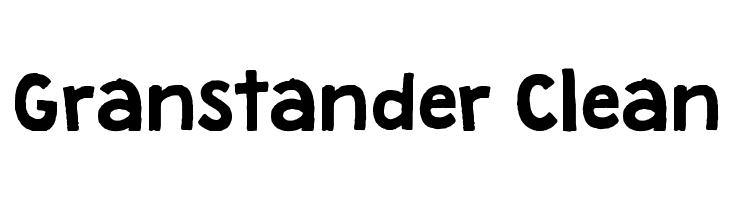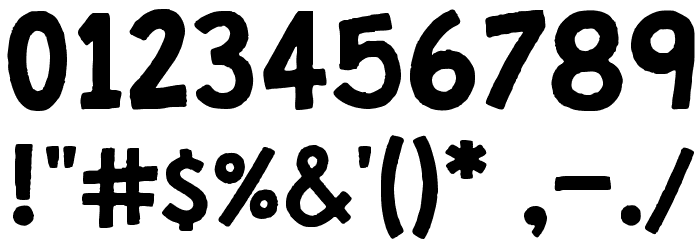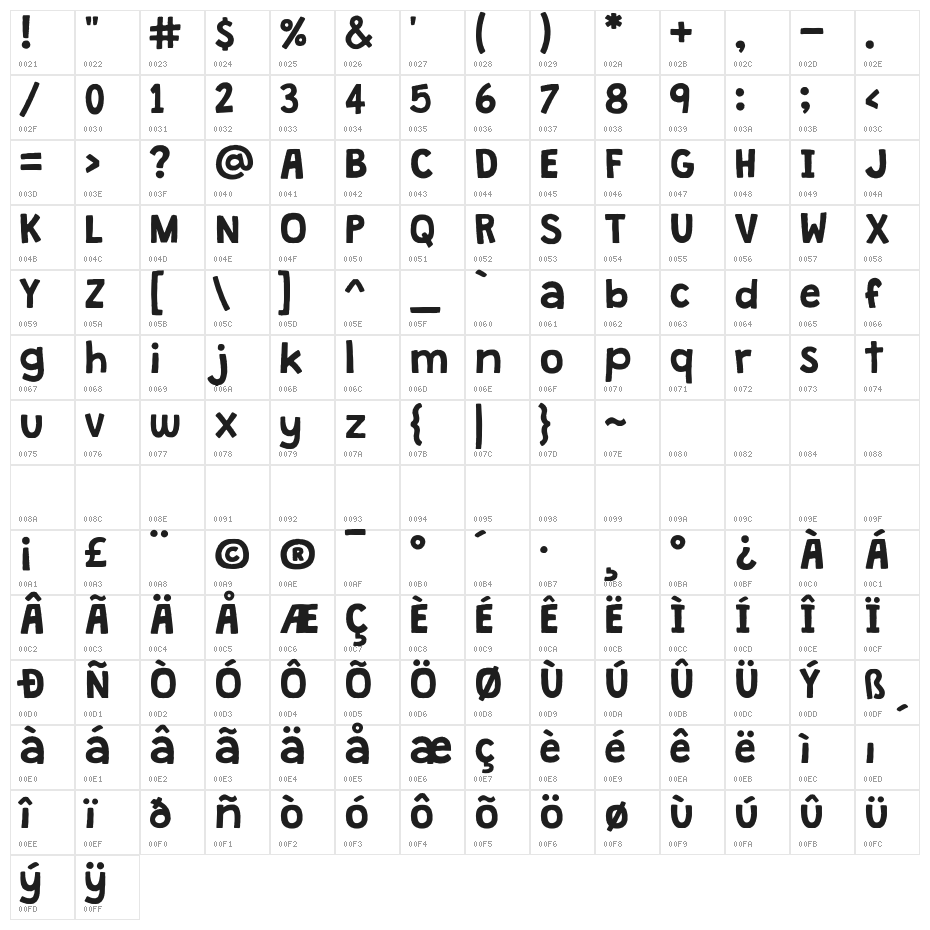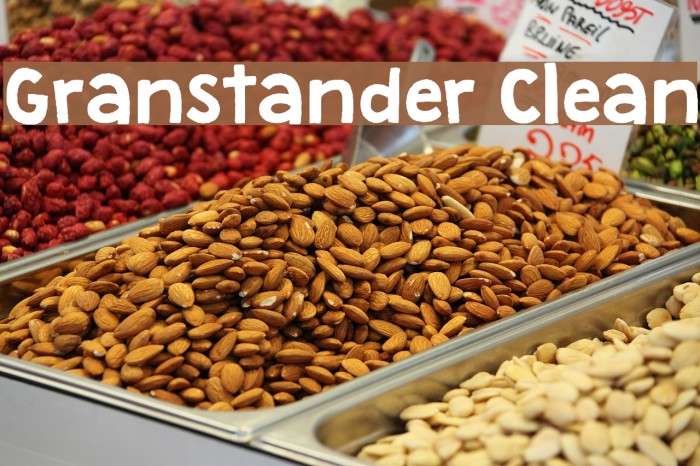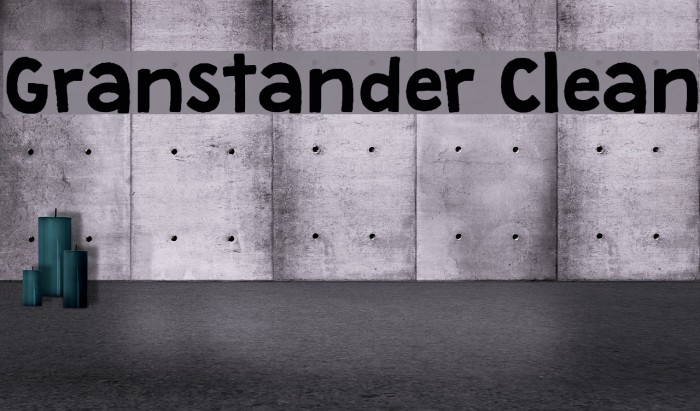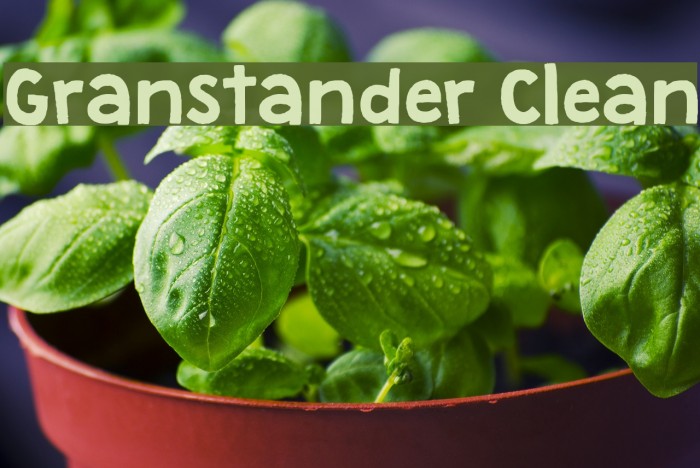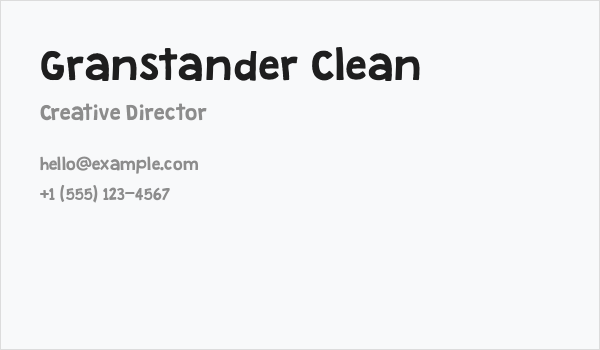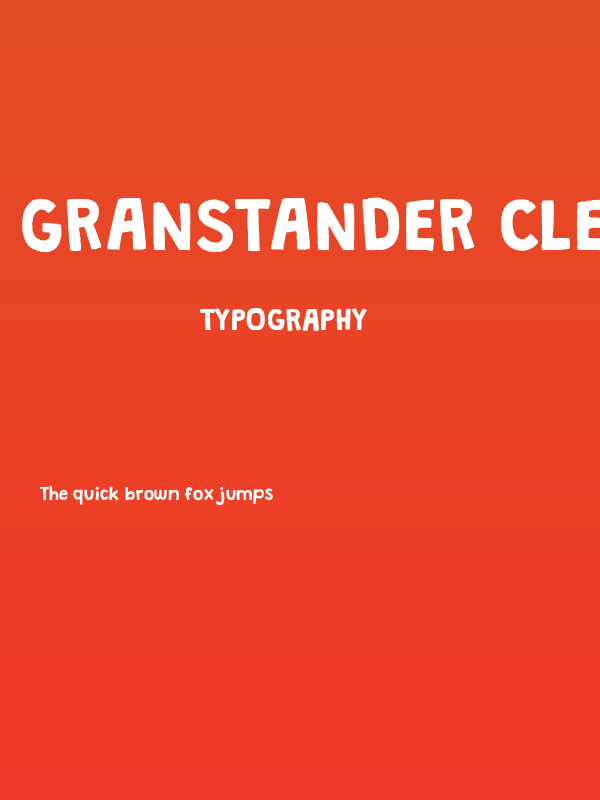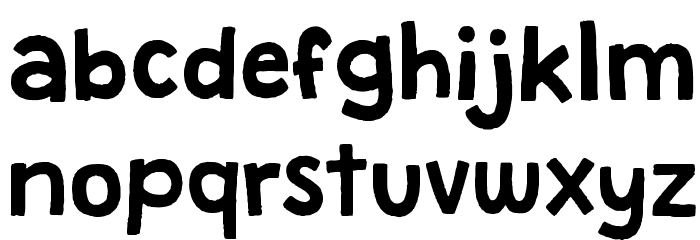
Granstander Clean Font
Granstander Clean Description
This font features a playful and bold style with rounded edges and a hand-drawn appearance. The letters are slightly irregular, giving it a casual and friendly feel. It is highly legible with a consistent stroke width, making it suitable for various informal applications. The characters are well-spaced, ensuring readability even at smaller sizes. The numbers and special characters maintain the same playful aesthetic, complementing the alphabetic characters perfectly. This font is ideal for projects that require a touch of whimsy and approachability.
| Proposed Projects | Ideal for children's books, playful branding, casual invitations, and social media graphics. |